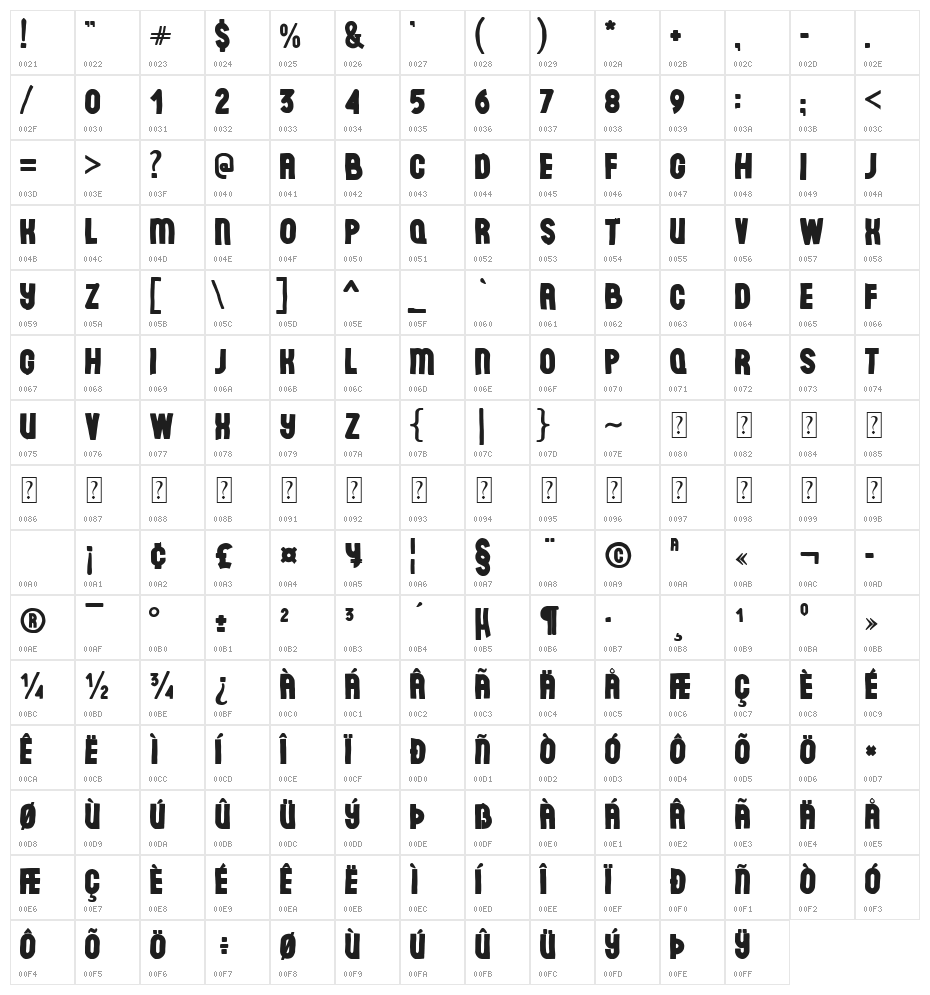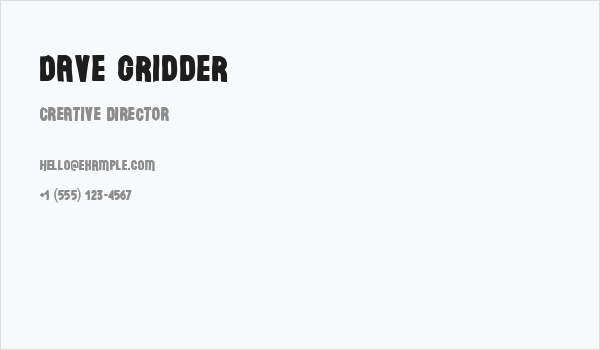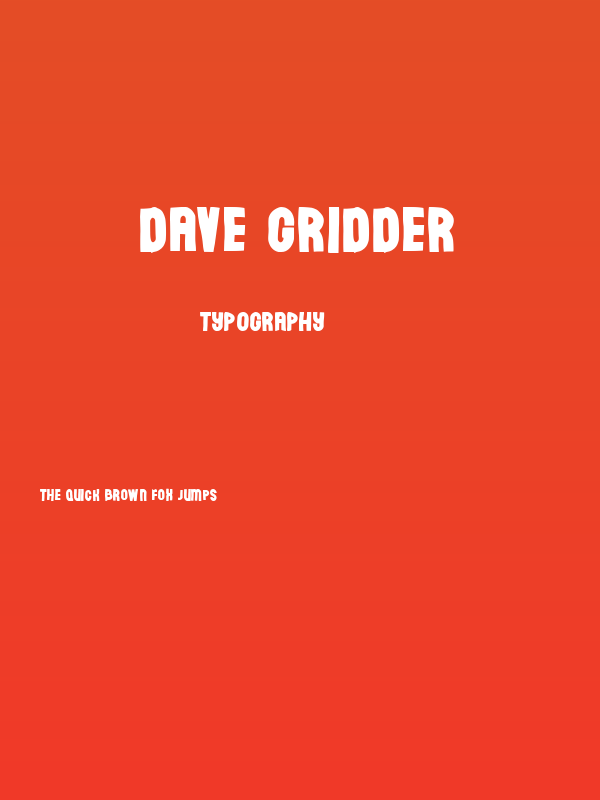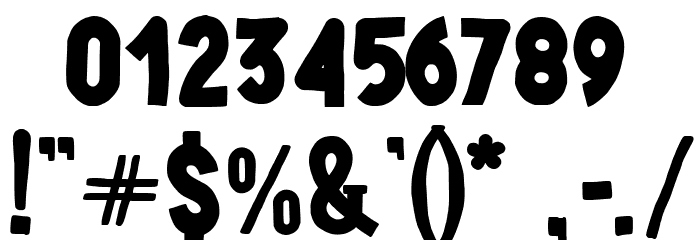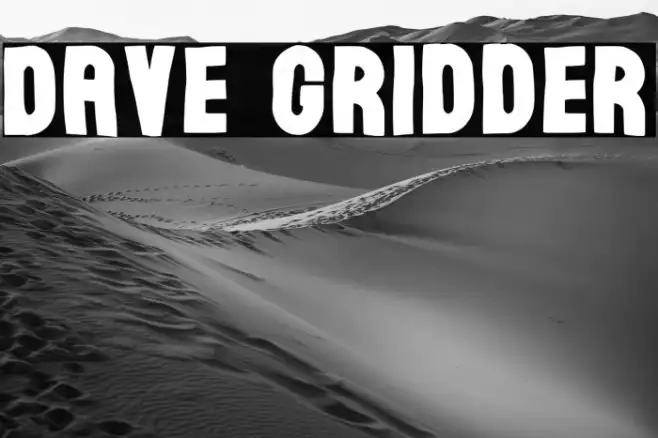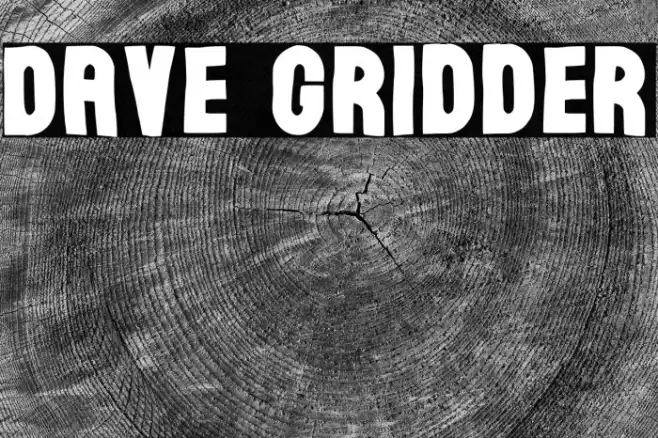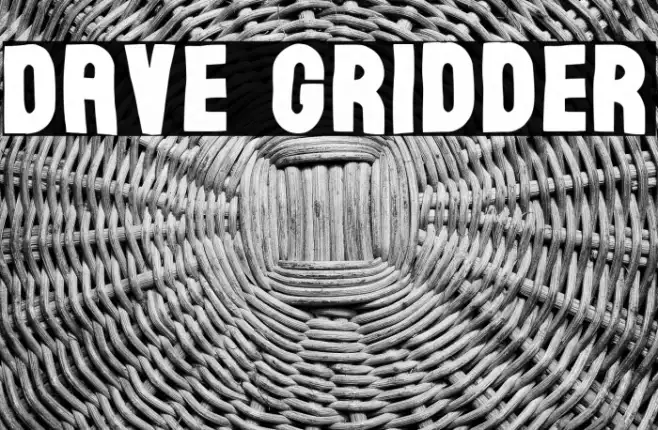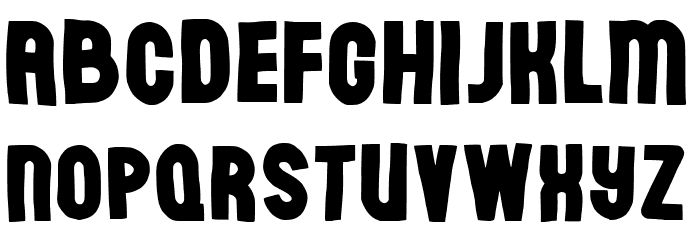
Dave Gridder Font
Dave Gridder Description
This font features a bold and playful design with a hand-drawn aesthetic. The characters are thick and slightly irregular, giving it a whimsical and informal appearance. The uppercase letters are prominent and eye-catching, while the lowercase letters maintain a consistent style. Numbers and special characters are designed to match the playful theme, making them suitable for creative and fun projects. The overall look is dynamic and energetic, perfect for designs that require a touch of personality and flair.
| Use Case | Headlines, Posters, Branding |
| Proposed Projects | Ideal for children's books, playful branding, posters, and creative social media graphics. |